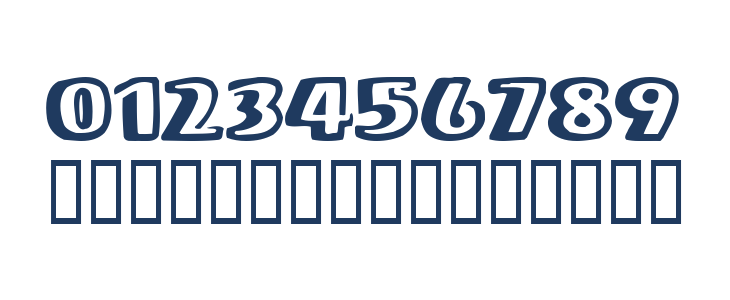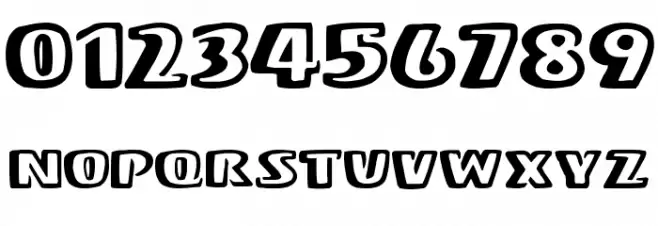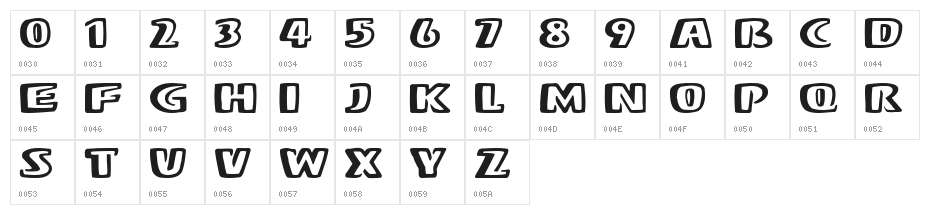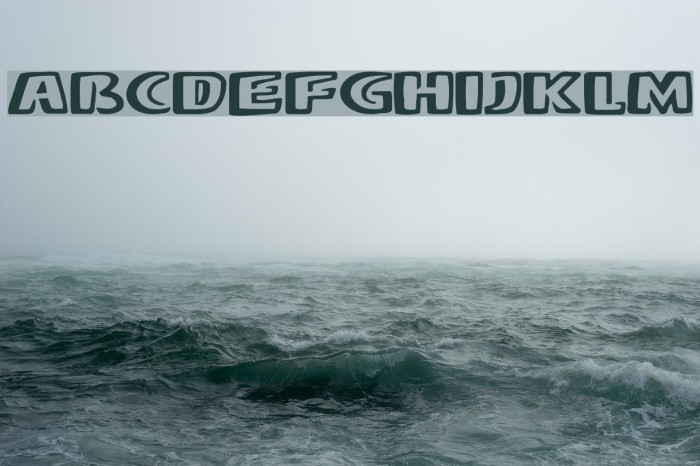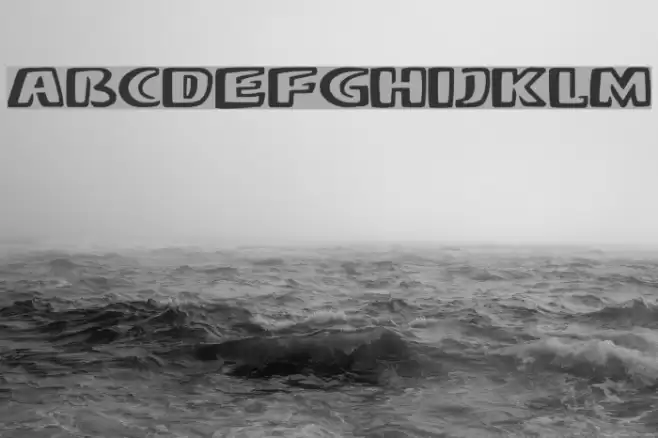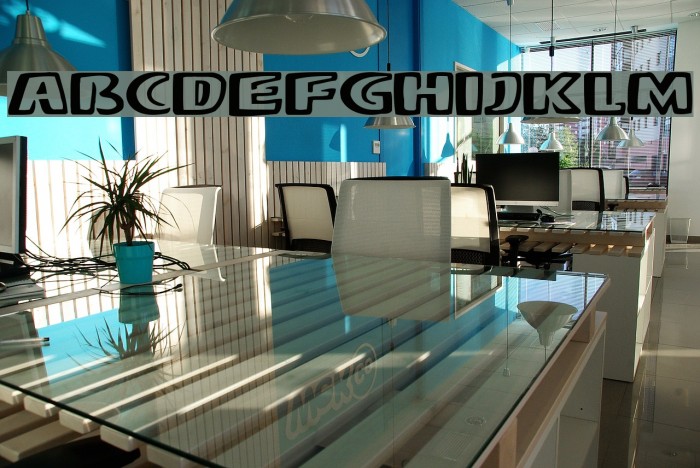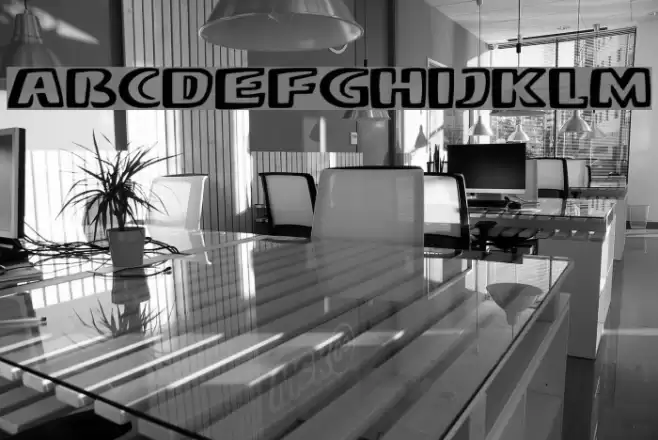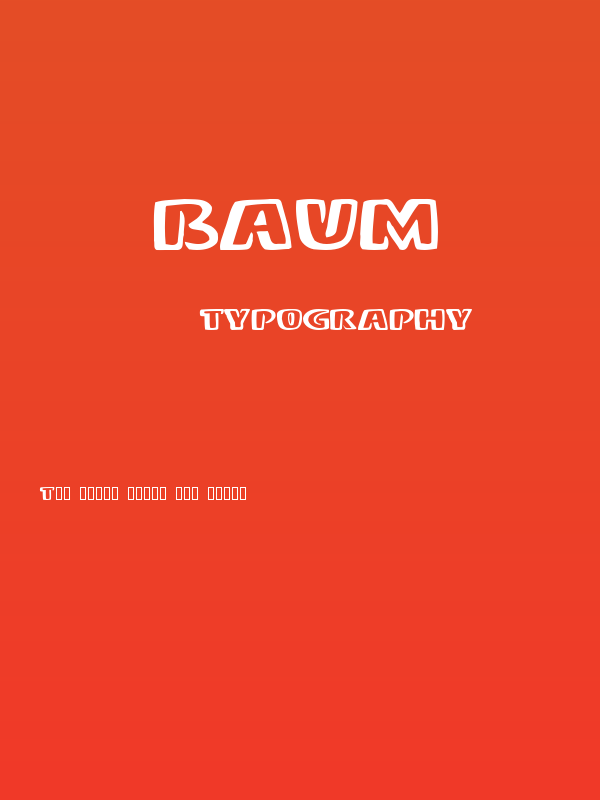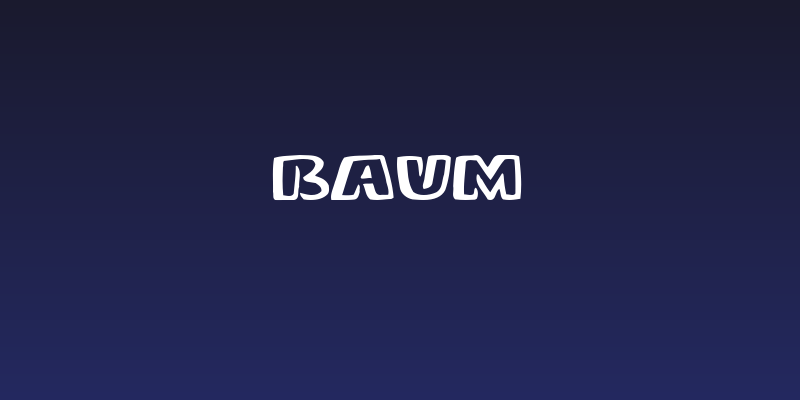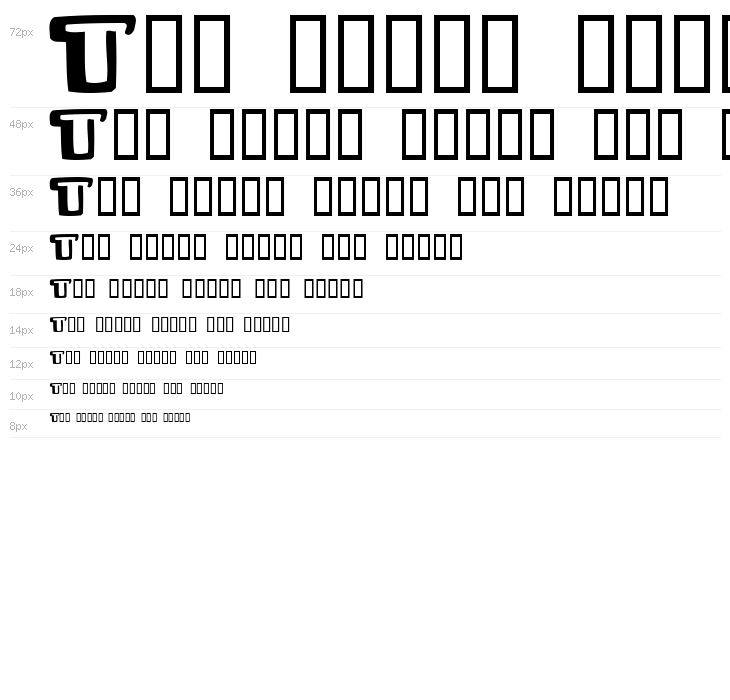
Baum Font
Baum Description
This font features a bold and playful design with thick strokes and a slightly rounded appearance. The characters have a unique, cartoon-like quality, making them stand out with a fun and engaging style. The letters are uniformly bold, with consistent stroke widths that give the font a cohesive look. The overall design is reminiscent of retro or comic book styles, with a modern twist that makes it suitable for a variety of creative projects. The numbers and special characters maintain the same playful aesthetic, ensuring a harmonious appearance across all text elements.
| Overall Style | Playful, Retro, Comic |
| Proposed Projects | Ideal for children's books, comic strips, playful branding, and eye-catching posters. |